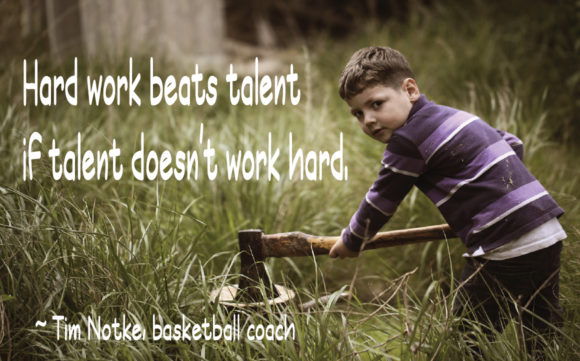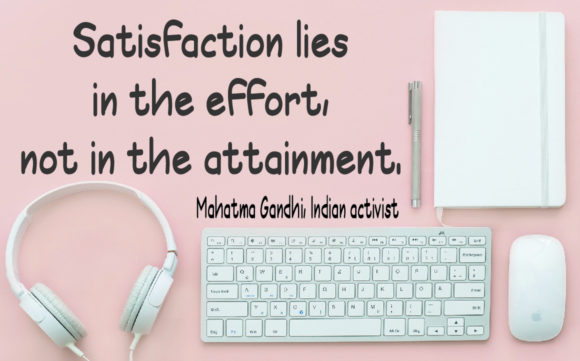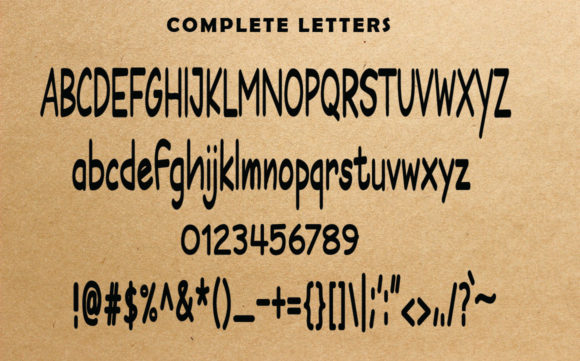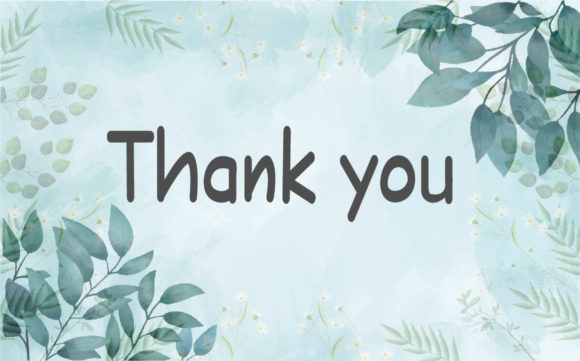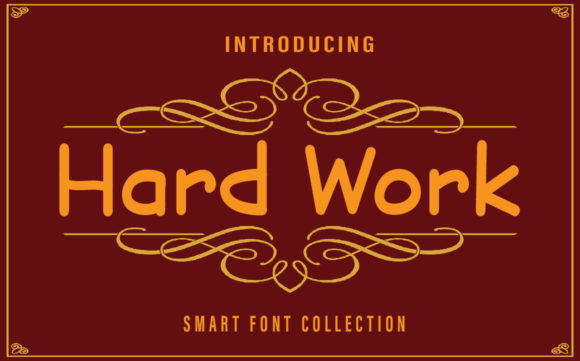
Unleash Your Creativity with Hard Work Font: A Simple yet Unique Handwritten Font
In the world of design, fonts play a crucial role in bringing creative ideas to life. A perfect font can elevate your project, making it stand out from the crowd. If you’re a designer, crafter, or simply someone who loves to dabble in creative projects, you’re in luck! Introducing Hard Work Font, a simple and unique handwritten font that can be paired with an incredibly large set of projects.
What is Hard Work Font?
Hard Work Font is a beautifully crafted handwritten font that exudes a sense of simplicity and elegance. Its unique style makes it versatile enough to be used in a wide range of projects, from creative crafts to digital designs. Whether you’re working on a logo, a poster, a card, or a digital graphic, Hard Work Font is the perfect choice.
Key Features of Hard Work Font
- Simple and Unique: Hard Work Font boasts a distinctive handwritten style that sets it apart from other fonts.
- Versatile: Its simplicity and elegance make it suitable for a wide range of projects, from formal to informal.
- Easy to Read: The font is clear and legible, making it perfect for both digital and print projects.
- Highly Customizable: Hard Work Font can be easily paired with other fonts and design elements to create a unique look.
How to Use Hard Work Font in Your Projects
Hard Work Font is incredibly easy to use and can be paired with a variety of projects, including:
- Logos and Branding: Create a unique and memorable logo for your business or personal brand.
- Posters and Flyers: Add a personal touch to your posters and flyers with Hard Work Font.
- Cards and Invitations: Make your cards and invitations stand out with this beautiful handwritten font.
- Digital Graphics: Use Hard Work Font in your digital graphics, such as social media graphics, blog headers, and more.
- Crafts and DIY Projects: Add a personal touch to your craft and DIY projects, such as handmade cards, scrapbooking, and more.
Tips for Getting the Most Out of Hard Work Font
To get the most out of Hard Work Font, here are a few tips:
- Experiment with Different Sizes: Try out different font sizes to see how Hard Work Font looks in various contexts.
- Pair it with Other Fonts: Combine Hard Work Font with other fonts to create a unique and visually appealing design.
- Use it in Combination with Images: Pair Hard Work Font with images or graphics to add an extra layer of depth to your design.
Whether you’re a seasoned designer or just starting out, Hard Work Font is a must-have in your font collection. Its unique style and versatility make it an excellent addition to any project. So go ahead, get creative, and see how Hard Work Font can make your projects stand out!